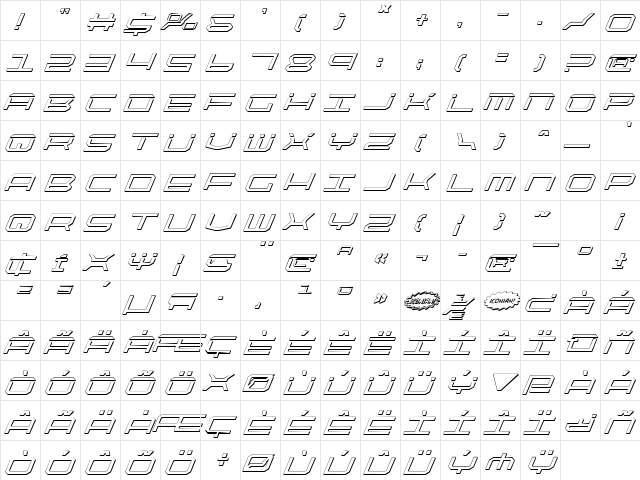
QuickTech Shadow Italic Shadow Italic
| Designer | Dan Zadorozny |
Design Context for QuickTech Shadow Italic Typeface
QuickTech Shadow Italic channels digital-age aesthetics through its sharp, structured letterforms — ideal for brands that want to signal innovation. Its italic angle brings a sense of urgency and motion to the letterforms.